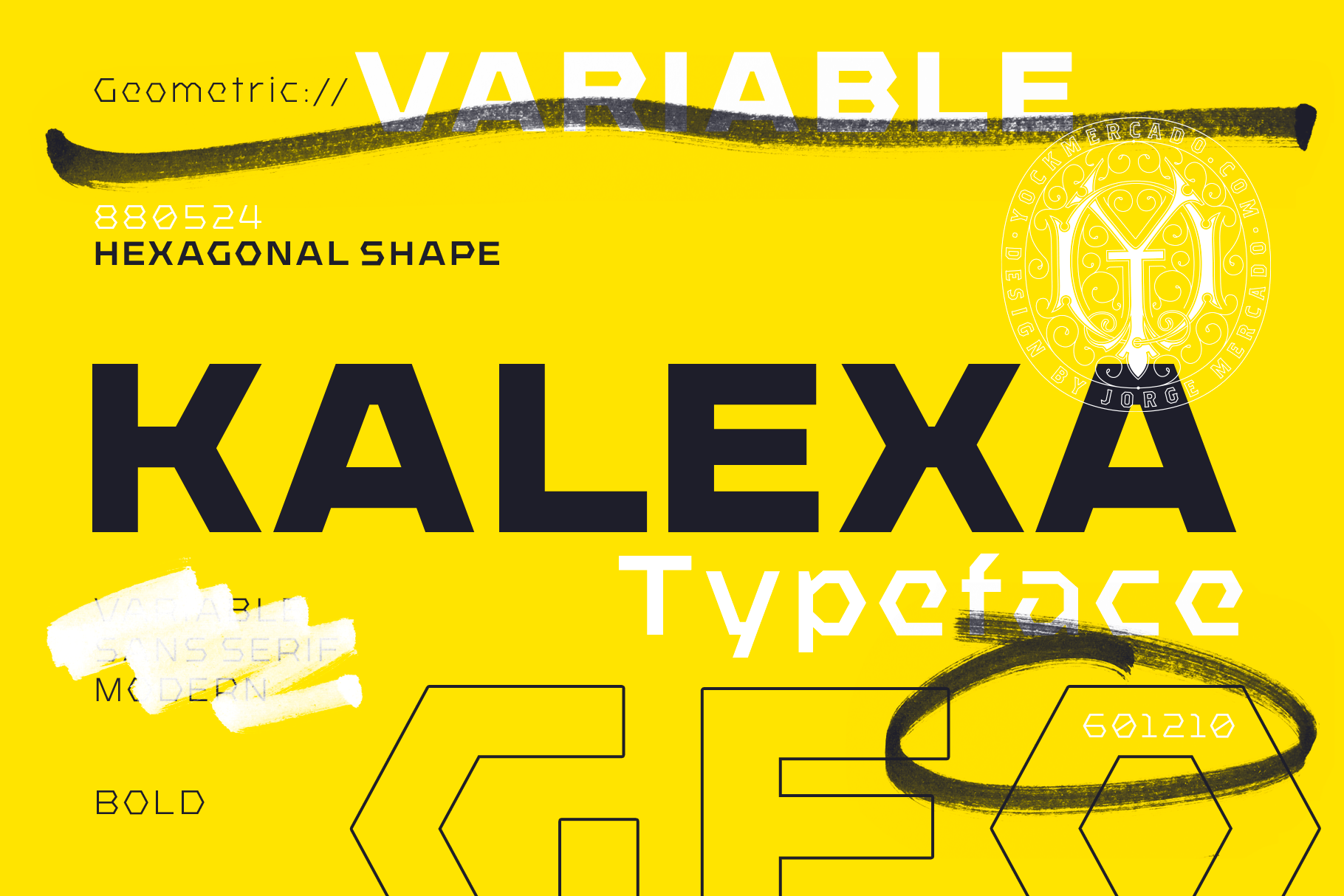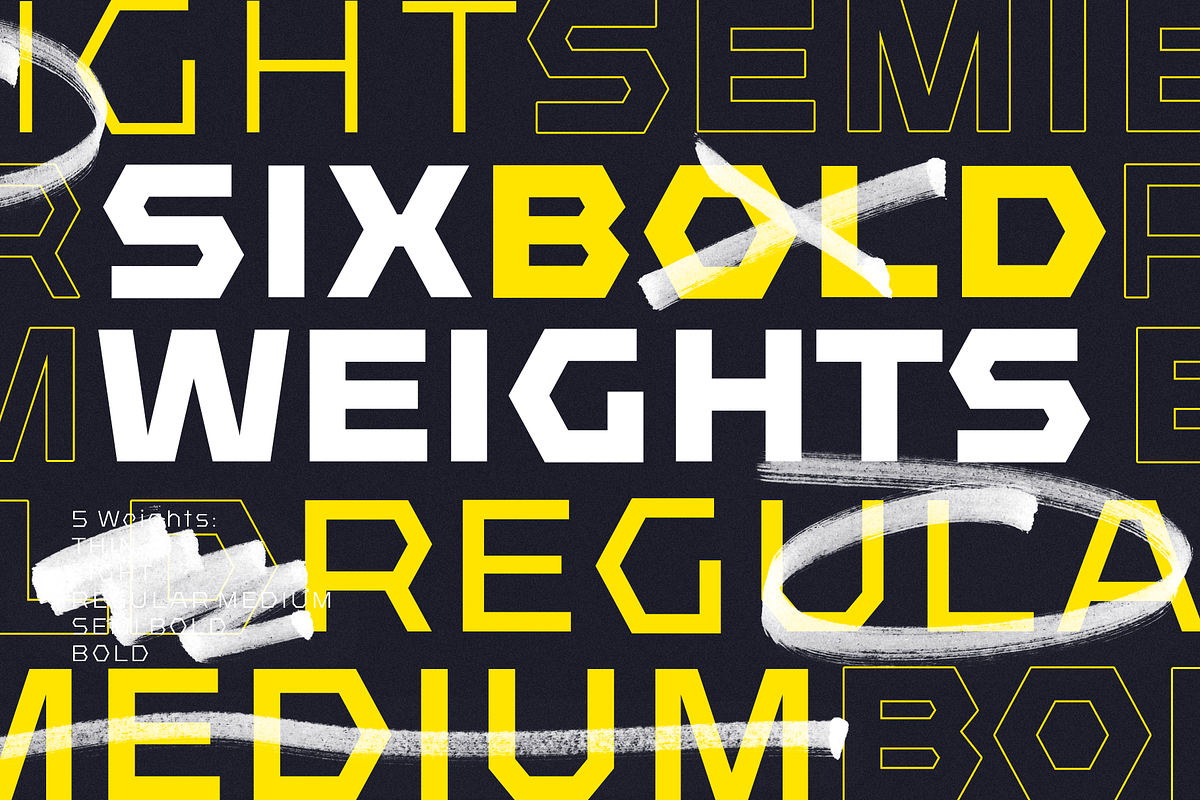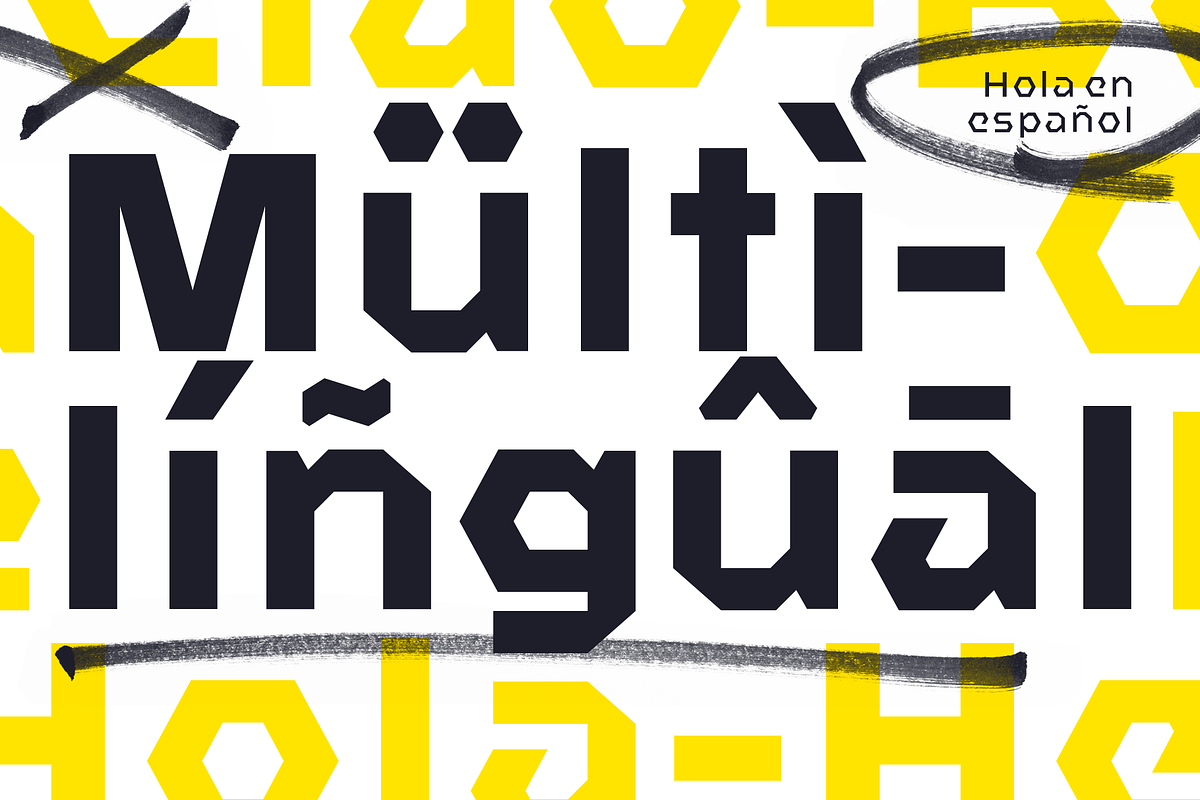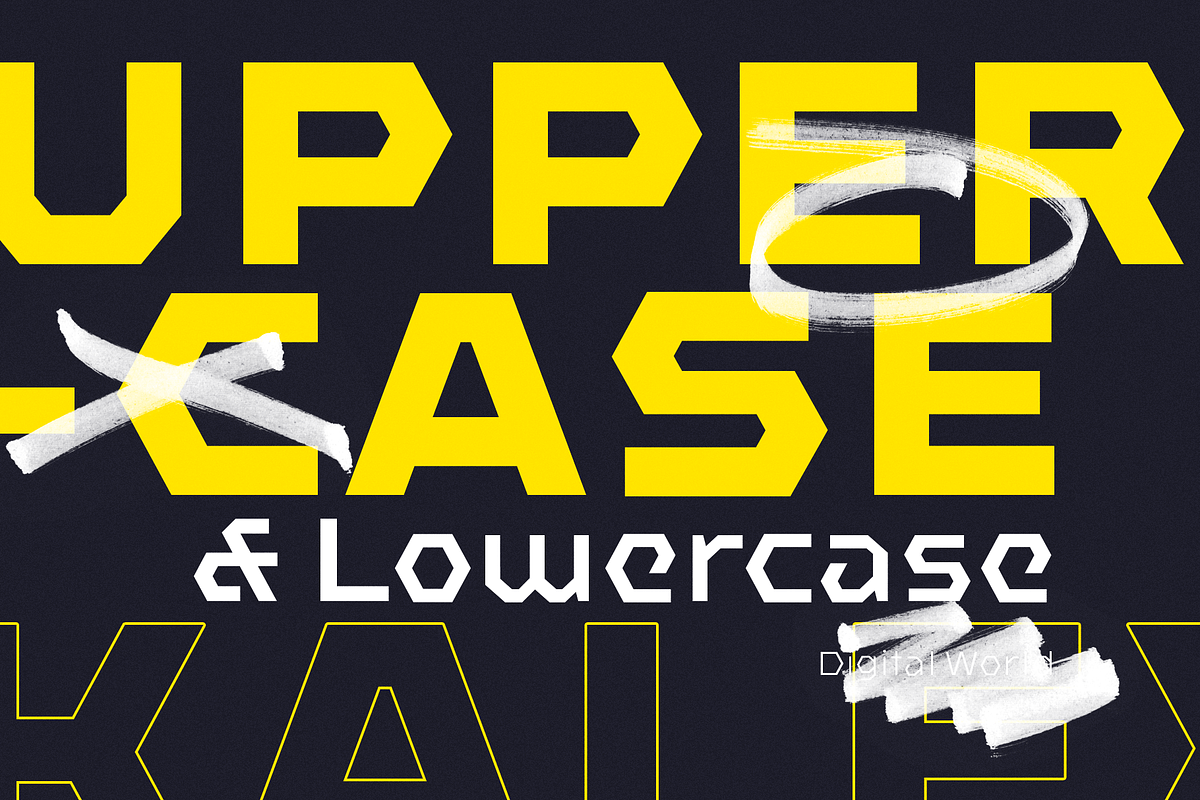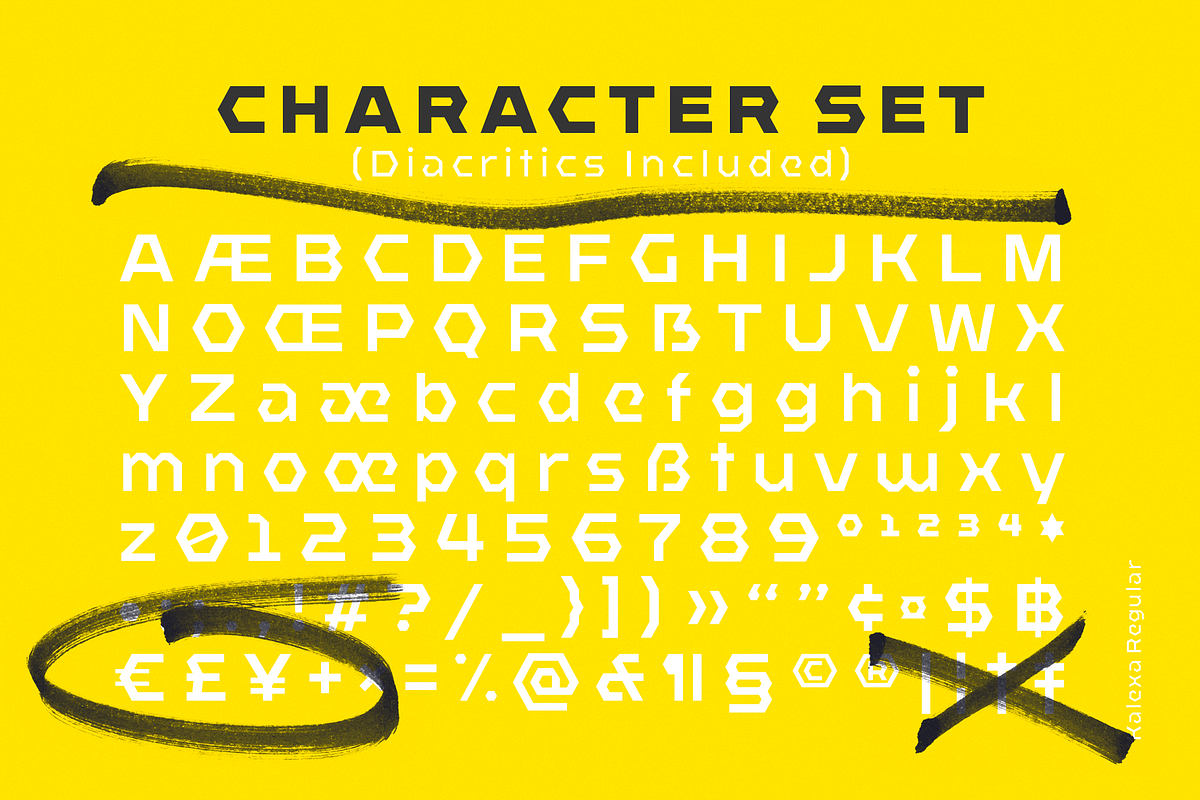
Kalexa Hexagon Geometric Font
Kalexa, a name inspired by the fusion of kaleidoscope and hexagon, is a modern typeface created from geometric lines based on the hexagon's shape. It draws inspiration from low poly and heavy industrial typefaces, reflecting modernity, simplicity, and power. With its sleek and minimalist design, Kalexa emerges as a disruptive force.
Thanks to its 6 font weights, it is highly versatile, making it suitable for a myriad of projects across various themes, ranging from sports designs and industrial brands to technology projects. It adheres to the trend of bold and unconventional shapes while maintaining excellent readability.
Available in a variable version for precise control over font weights, Kalexa unlocks endless possibilities for designers to craft captivating visual experiences. Each line becomes a brush of creativity, walking the line to new frontiers of design expression.